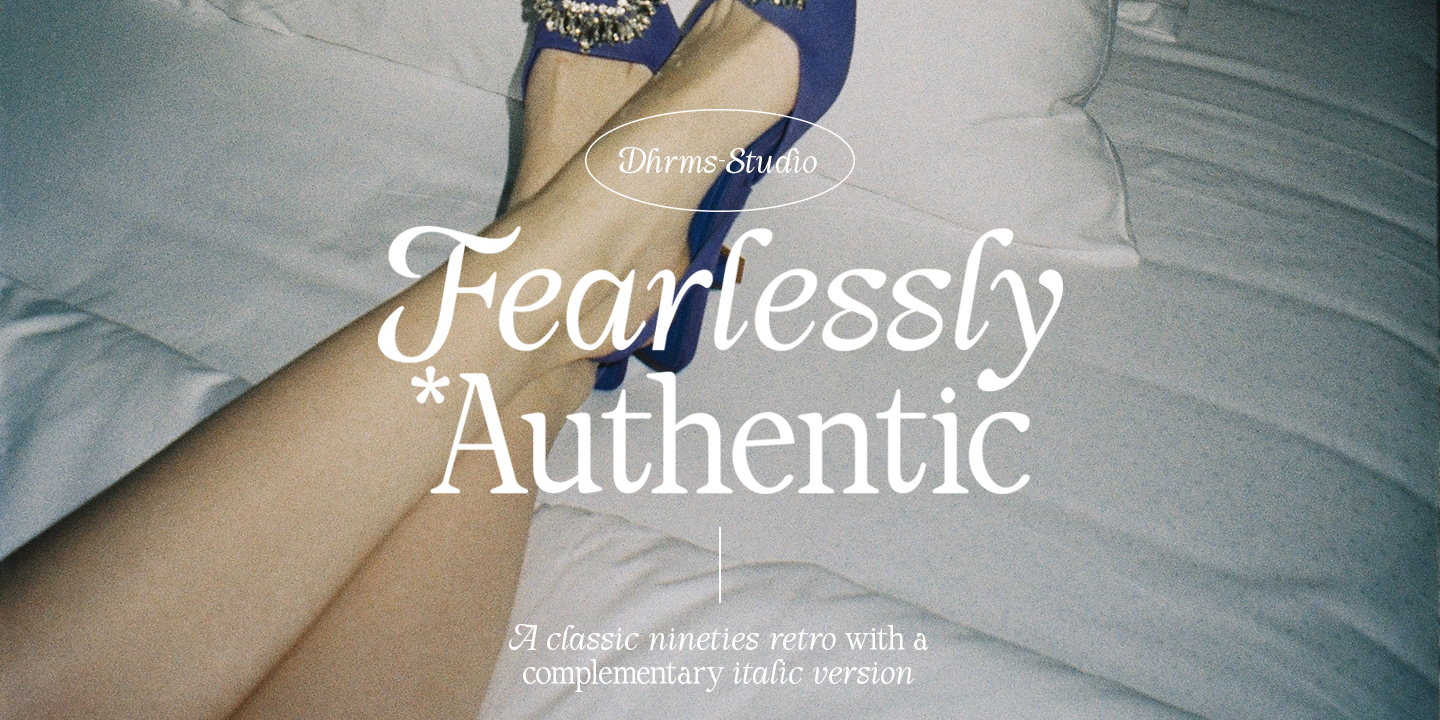
Fearlessly Authentic Font is perfect for branding statements, inspirational quote graphics, fashion editorials, podcast cover art, YouTube thumbnails, and lifestyle blog headers. Wherever you want your message to feel bold, raw, and real—this font delivers.
What makes this font so exciting is its daring, hand-crafted look that screams personality. It’s wild yet polished, imperfect yet intentional—just like real authenticity. It brings energy, emotion, and a touch of rebellion to any design.
Fearlessly Authentic Font comes in several font family styles, including Regular, Bold, Italic, and Rough versions. These variants give you flexibility to adapt it across multiple design contexts while keeping your visual language consistent and impactful.